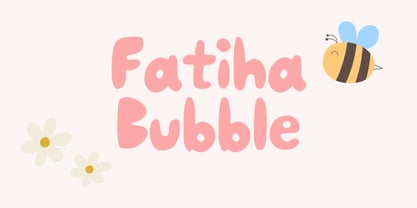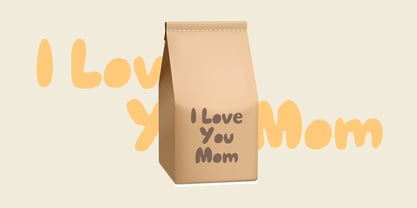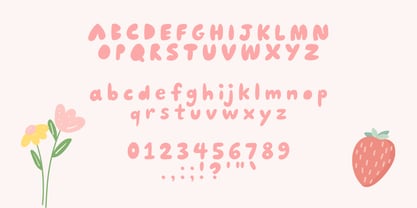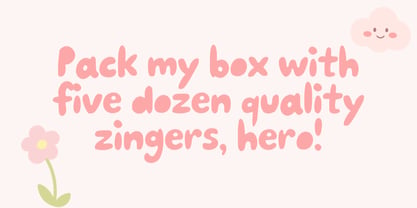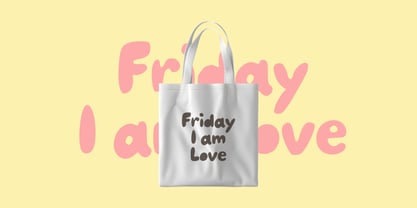
Fatiha Bubble is a playful display handwriting font with bold, rounded letterforms that instantly bring warmth, fun, and personality to any design. Its chunky bubble style creates a friendly and cheerful look, making it perfect for projects that need a cute, approachable, and eye-catching appearance.
Designed with smooth curves and a natural handwritten feel, Fatiha Bubble works beautifully for children's products, toy packaging, classroom materials, greeting cards, birthday invitations, stickers, social media graphics, YouTube thumbnails, posters, branding, logos, apparel, merchandise, and creative craft projects. It is also an excellent choice for quotes, book covers, packaging, and digital content that aims to stand out with a joyful character.
Despite its bold shape, the font maintains excellent readability at both large display sizes and medium-sized headlines. The playful proportions and soft edges create a welcoming visual rhythm that feels expressive without being overwhelming.
Fatiha Bubble includes uppercase and lowercase letters, numerals, punctuation, and multilingual language support, making it suitable for a wide range of creative applications. Pair it with a clean sans-serif font for balanced layouts, or combine it with other handwritten styles to create charming and playful typography.
Whether you're designing for kids, family-friendly brands, fun events, or colorful creative projects, Fatiha Bubble adds a delightful handmade touch that makes every message feel more lively, friendly, and memorable.